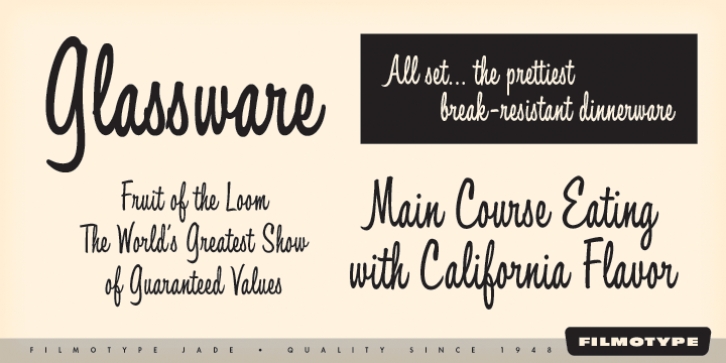
Filmotype Jade is unique as one of a few bold condensed upright scripts in its library with its smooth flowing handwritten style originally released by Filmotype in 1955 to expand its Scripts category.
Filmotype Jade was developed from the original font filmstrips and includes a full international character compliment, automatic fractionals, ordinals, and a very large set of alternate contextual characters and ligatures to allow flawless typesetting in dynamic OpenType format.